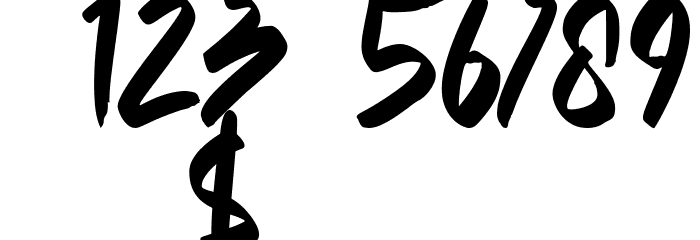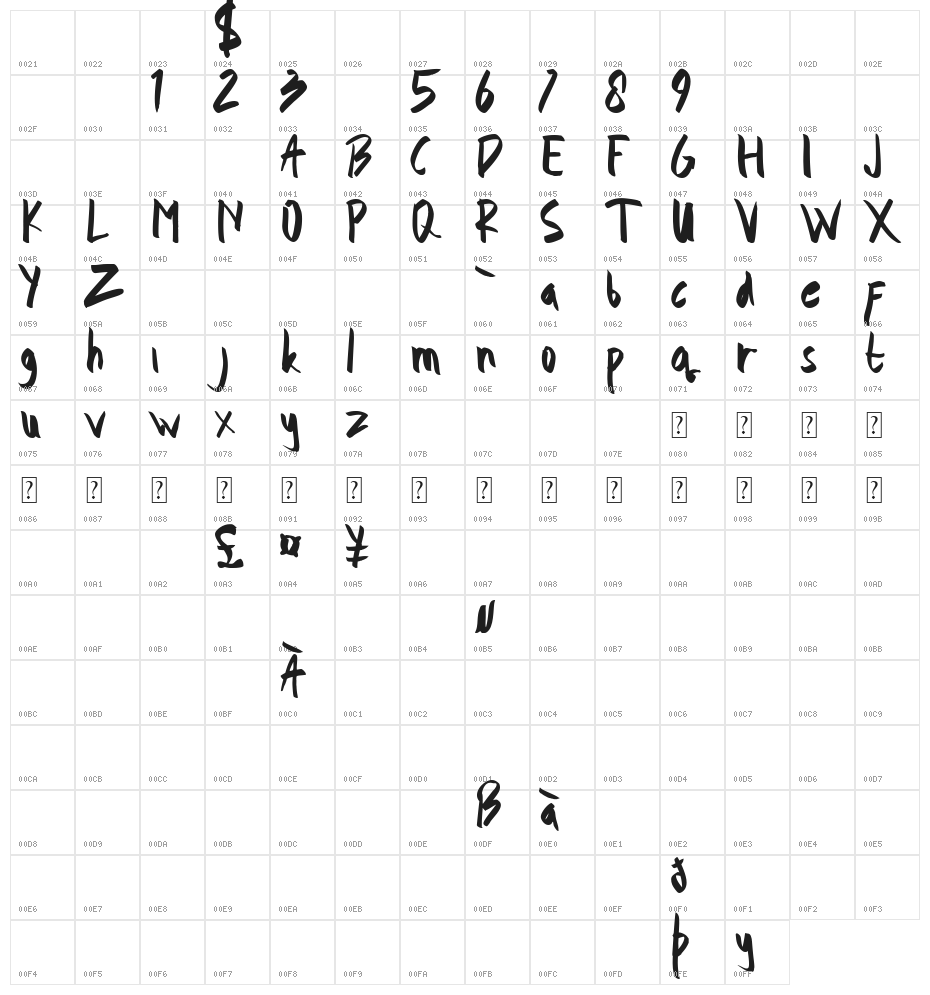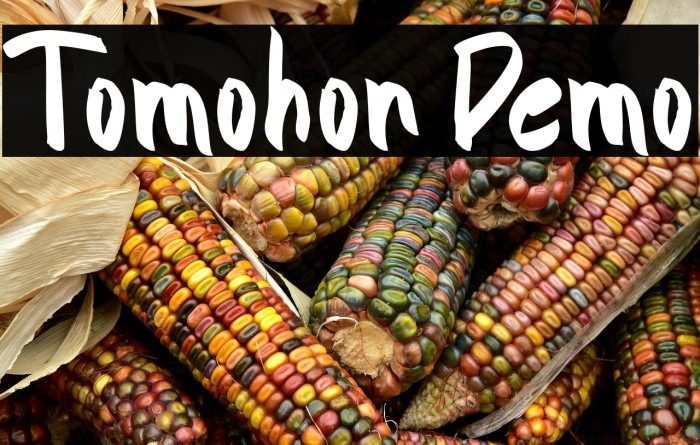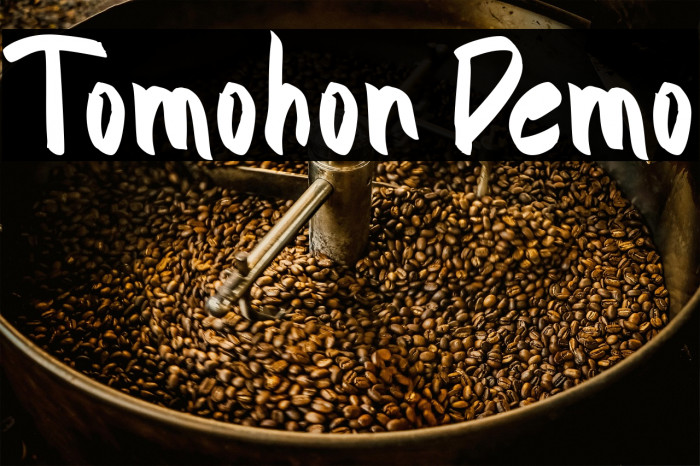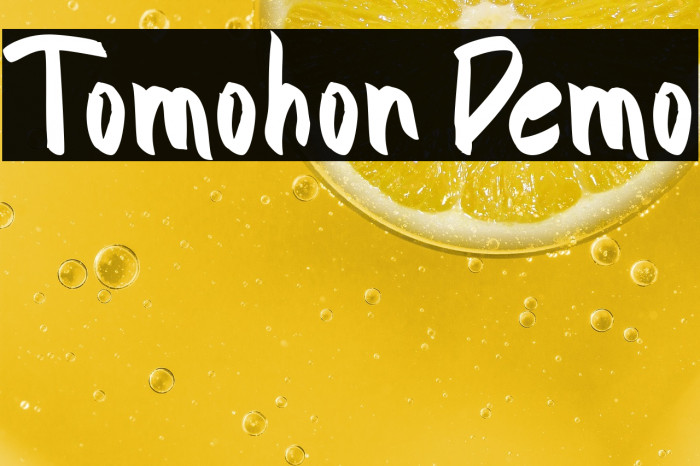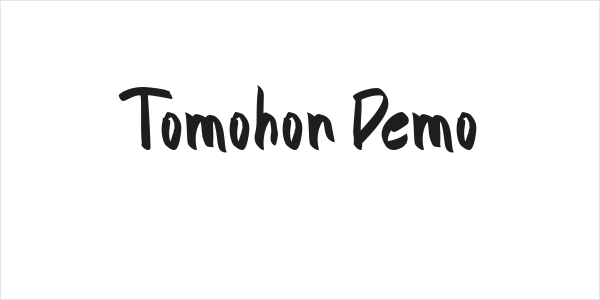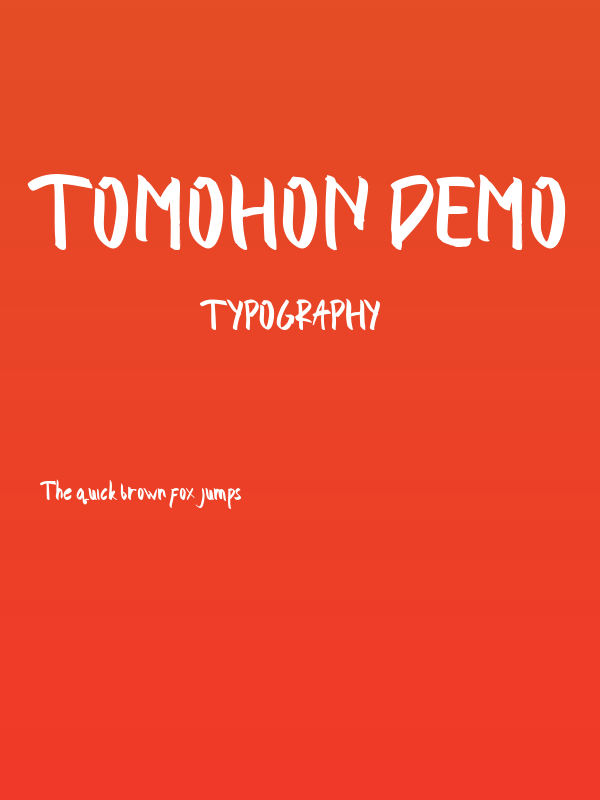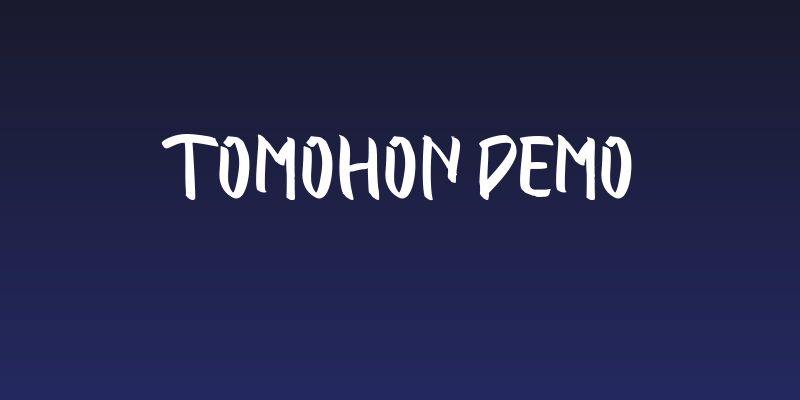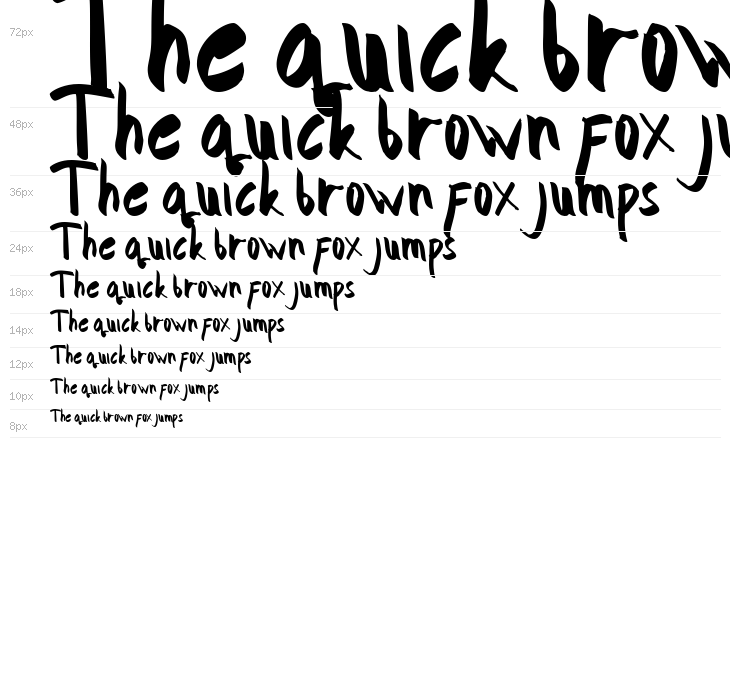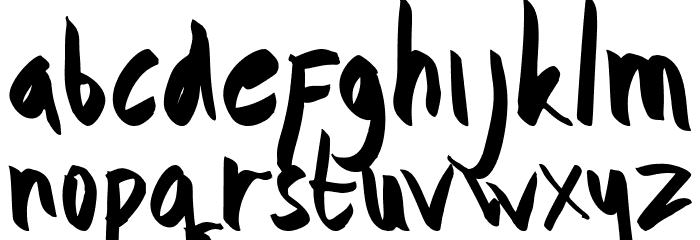
Tomohon Demo Font
Tomohon Demo Description
This font exhibits a bold, expressive style with a handwritten appearance. The strokes are thick and dynamic, giving each character a lively and energetic feel. The uppercase letters are tall and slightly irregular, adding to the casual, informal vibe. Lowercase letters maintain this playful aesthetic, with some characters featuring exaggerated curves and angles. The numbers are bold and consistent with the overall style, ensuring readability while maintaining the font's unique character. Special characters are creatively designed, fitting seamlessly with the rest of the set. This font is ideal for projects that require a personal touch or a sense of spontaneity.